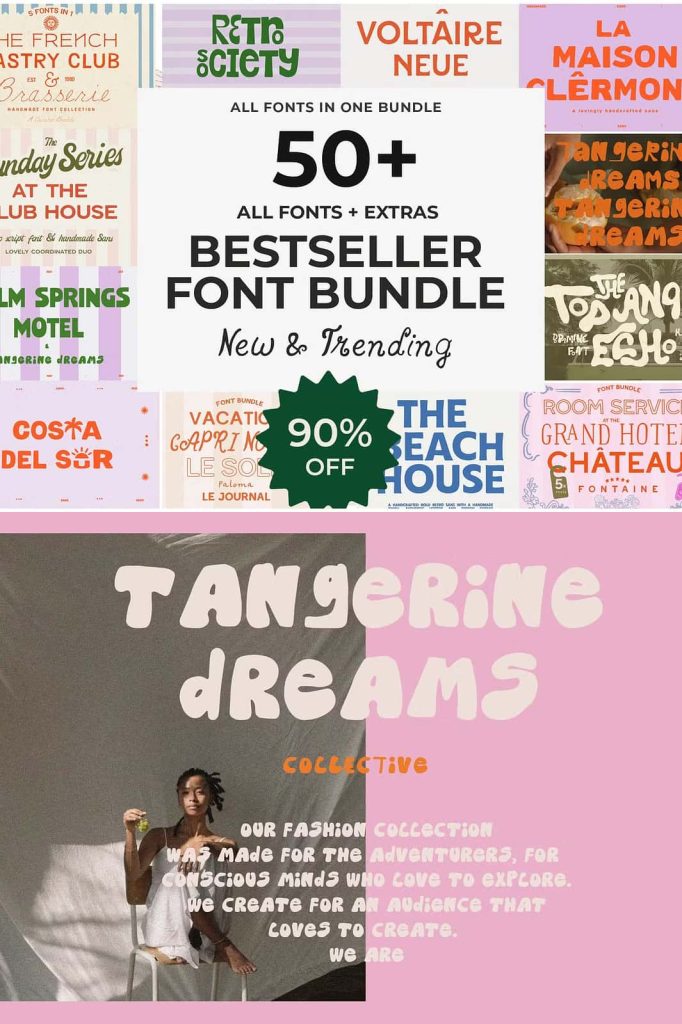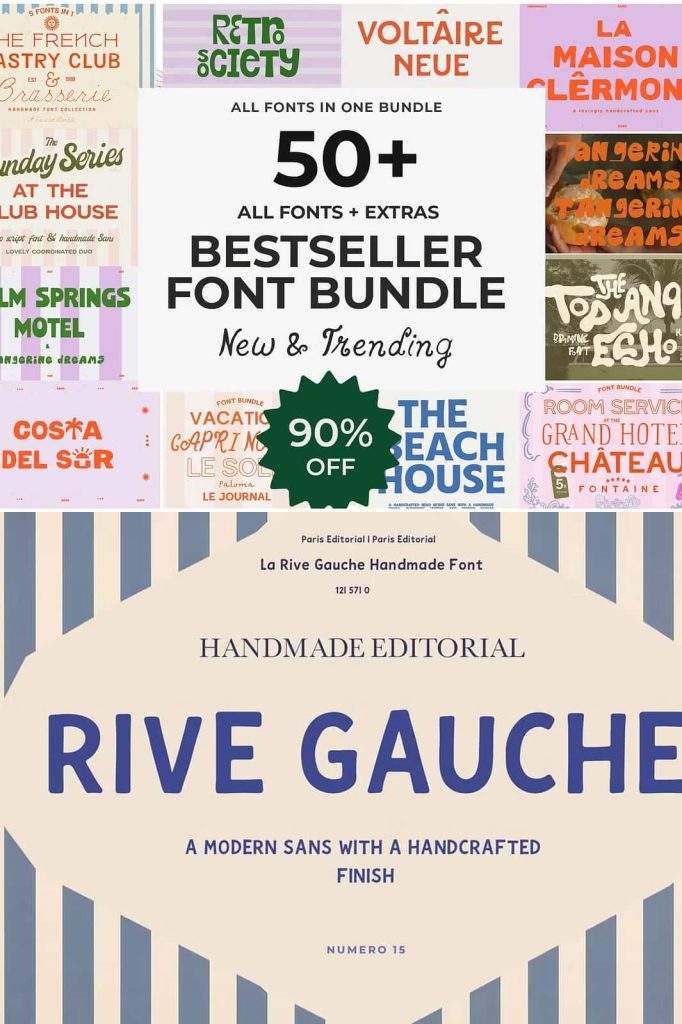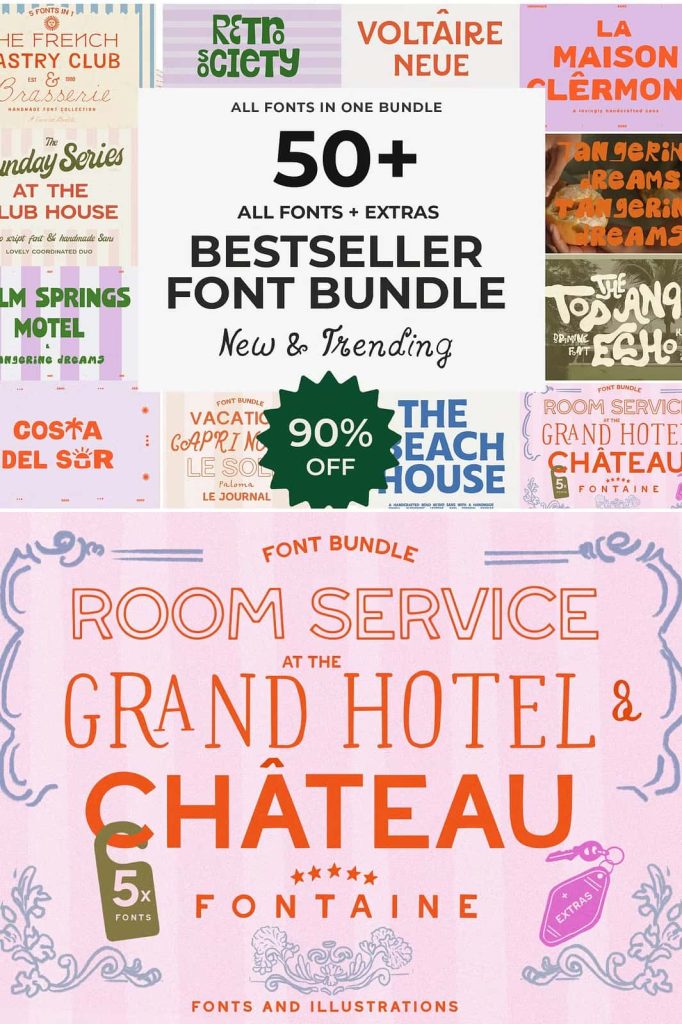
Modern Hand Lettered Font Bundle: A Complete Library of Handmade Typography
Modern hand lettered font bundle offers a comprehensive collection of handcrafted typefaces designed to elevate your creative projects. This extensive library includes every font created within the collection, each one drawn by hand and refined with precision. It brings together a wide range of styles, allowing designers to explore and create without limitations.
This bundle goes beyond a simple font pack. It provides a complete typographic toolkit that supports both creativity and functionality. From clean sans serif styles to expressive scripts and bold display fonts, every typeface reflects a commitment to quality and authenticity. Designers can rely on this collection to build unique and engaging visual compositions.
A Diverse Collection of Handcrafted Fonts
The modern hand lettered font bundle includes a wide variety of styles, ensuring that designers have the flexibility to meet different creative needs. The collection features handmade sans serif fonts, playful marker styles, elegant serif typefaces, whimsical scripts, and modern display fonts.
Each font is carefully designed to maintain its own identity while fitting seamlessly into the overall library. This diversity allows designers to experiment with different styles and find the perfect match for any project.
Explore Endless Creative Possibilities
With such a broad range of fonts, designers can easily switch between styles or combine them to create something new. This flexibility encourages experimentation and helps produce designs that feel fresh and original.
The variety ensures that the bundle remains useful across multiple design contexts, from branding to editorial work.
Hand Drawn and Carefully Refined
Every font in this bundle begins with hand-drawn sketches. This process ensures that each character carries a natural and organic feel. After the initial drawing stage, the fonts undergo careful refinement to improve consistency and readability.
This combination of manual craftsmanship and digital precision results in typefaces that feel authentic while maintaining professional quality. It allows designers to achieve a handcrafted look without sacrificing usability.
Combine Authenticity with Professional Quality
The hand-drawn origin of these fonts adds warmth and personality to your designs. At the same time, the refinement process ensures that they perform well across different applications.
This balance makes the bundle suitable for both creative and commercial projects.
Ligatures and Alternates for Natural Typography
Most fonts in this collection include ligatures and alternate characters. These features allow designers to create more natural and dynamic typography. By switching between different letterforms, you can reduce repetition and add visual interest to your text.
The inclusion of these features enhances the overall flexibility of the bundle. It gives designers greater control over their typography and allows for more personalized compositions.
Create Organic and Dynamic Text
Using ligatures and alternates, you can mimic the natural variations found in real handwriting. This makes your designs feel more authentic and less mechanical.
These features also support creative experimentation, enabling unique typographic layouts.
Perfect Font Pairings for Every Project
The modern hand lettered font bundle includes carefully designed typefaces that pair well together. You can combine bold vintage scripts with clean sans serif fonts, or mix elegant serifs with playful handwritten styles. These pairings help create balanced and visually engaging compositions.
The ability to mix and match fonts within the bundle simplifies the design process. It ensures that your typography remains cohesive while still offering variety.
Build Balanced and Cohesive Designs
By using complementary fonts from the collection, designers can create strong visual hierarchies and maintain consistency across their projects. This helps improve readability and overall design quality.
The curated nature of the bundle makes it easier to achieve professional results.
Ideal for Branding, Social Media, and Creative Work
This font bundle adapts easily to a wide range of applications. It works well for branding, logos, packaging, social media content, editorial layouts, and more. Its versatility makes it a valuable resource for designers working in different industries.
The handcrafted style adds personality and authenticity to your designs, helping them stand out in competitive markets.
Create Unique and Memorable Visual Identity
With this bundle, designers can build branding that feels distinctive and engaging. The variety of styles ensures that each project can have its own unique voice while maintaining a cohesive look.
This strengthens brand recognition and enhances audience connection.
By choosing this bundle, you gain access to a wide range of fonts that support creativity and consistency. It allows you to produce designs that feel personal, dynamic, and visually compelling. For branding, editorial work, and creative projects, this font library delivers reliable and inspiring results.